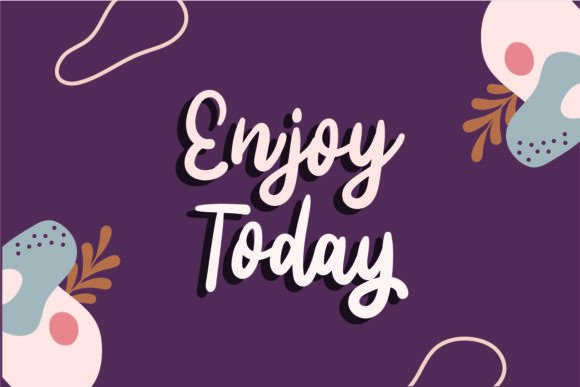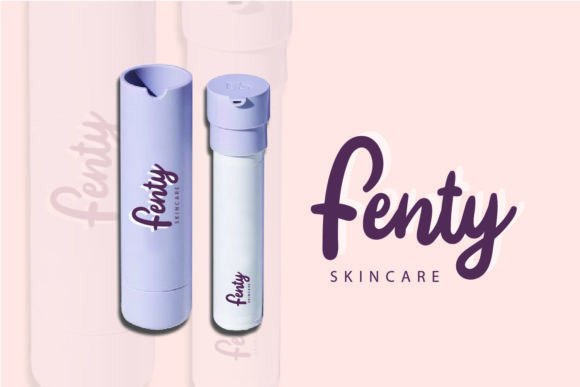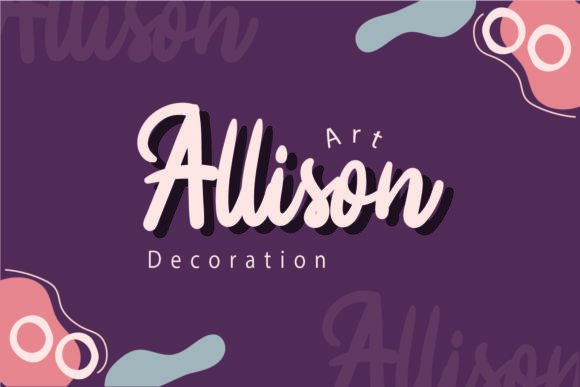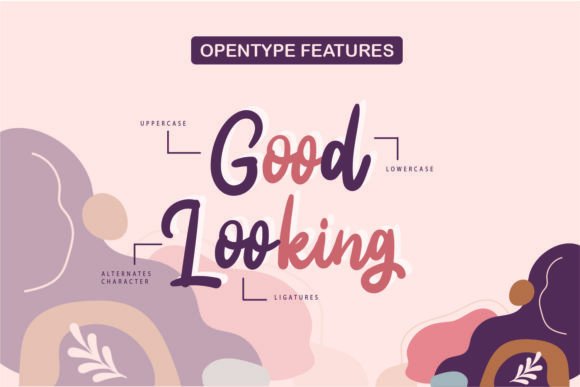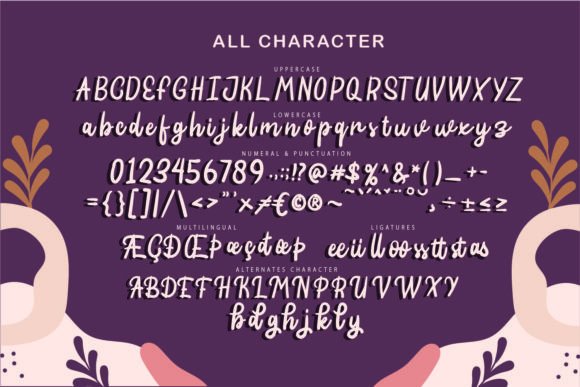
The Designer’s Delight: Fellicitas Font
I’ll never forget the time I was working on a wedding invitation project, and my client asked for a font that was both elegant and playful. I scoured the internet, tried out dozens of fonts, but nothing seemed quite right. That was until I stumbled upon Fellicitas Font. This modern script font with a calligraphy style has been a game-changer for me, and I’m excited to share it with you.
So, what makes Fellicitas Font so special? Here are a few things I love:
• ✨ Beautifully crafted letterforms with a touch of elegance
• ✅ Highly versatile and suitable for a wide range of design projects
• 💫 Works perfectly for both digital and print designs
• 🎨 Supports OpenType features, glyphs, and stylistic alternates
Of course, no font is perfect, and Fellicitas Font has a few small quirks:
• 🤔 Some users may find the font a bit too ornate for very casual designs
• ⚠️ May not work well with very small font sizes or low-resolution images
The Story Behind Fellicitas Font
Fellicitas Font was designed by a team of typographers who wanted to create a font that was both beautiful and functional. Inspired by traditional calligraphy, they crafted a font that is perfect for designs that require a touch of elegance. Whether you’re a designer, crafter, or creative hobbyist, Fellicitas Font is sure to become a favorite.
Font Name Fellicitas Font
Author Vunira
What is Fellicitas Font? Fellicitas Font is a modern script font with a calligraphy style, perfect for designs that require a touch of elegance.
What can I use Fellicitas Font for? Fellicitas Font is highly versatile and can be used for a wide range of design projects, including invitations, greeting cards, branding materials, business cards, quotes, posters, and more!